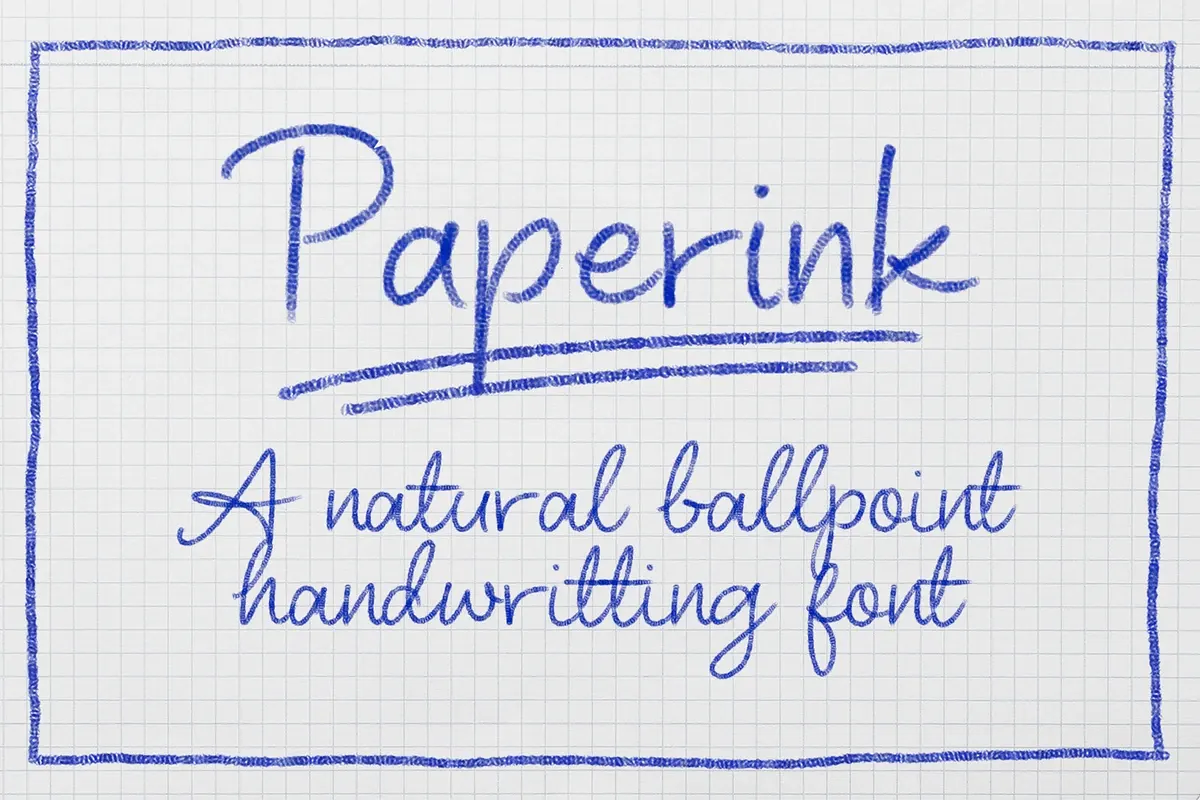
The Paperink - Color SVG Fonts Free Download is a unique and vibrant typeface that brings a dynamic, colorful touch to your designs. With its stunning color SVG technology, this font adds depth and creativity to your typography, making it perfect for creating eye-catching logos, posters, social media graphics, and more. The Paperink font combines intricate design with bold, playful colors, offering endless possibilities for branding and creative projects. Whether you're designing for digital content, advertising, or personal projects, this font will help your designs stand out with its lively and artistic flair. Please note, for commercial use, a license purchase is required. However, you can easily download the Paperink - Color SVG Fonts Free Download for free for personal use and explore its vibrant potential. Download the Paperink - Color SVG Fonts Free Download today and add a colorful, creative touch to your designs.